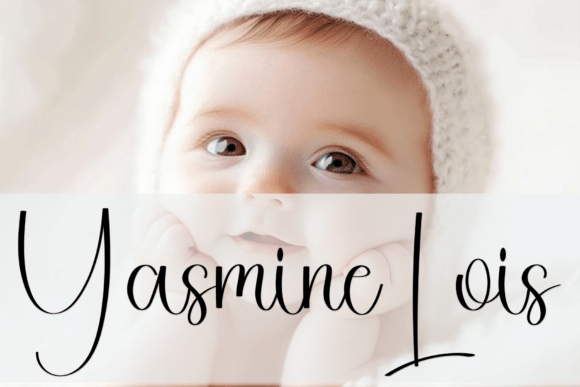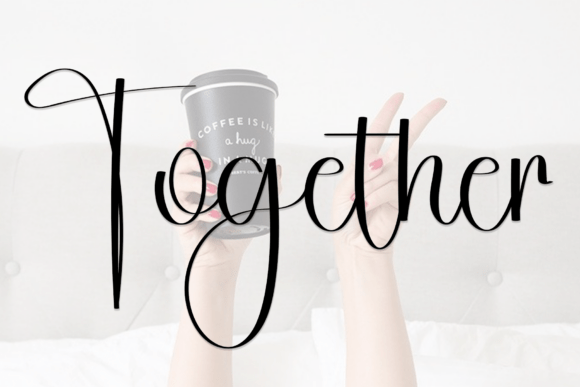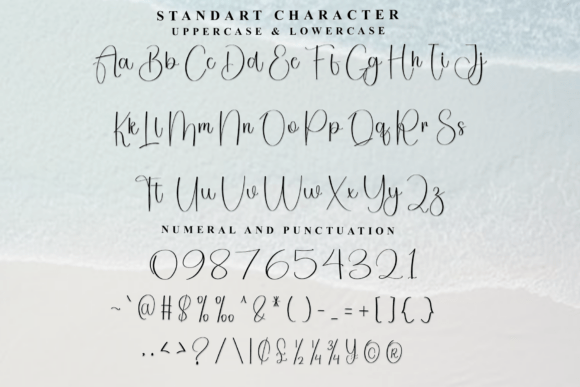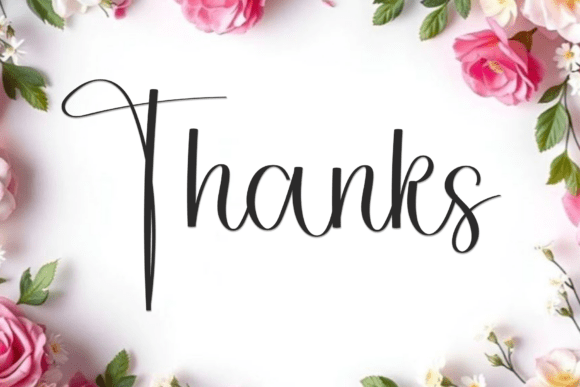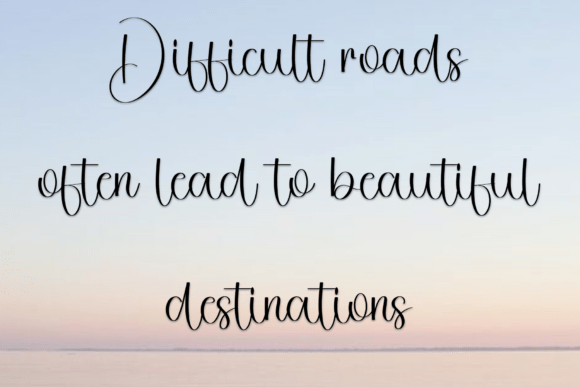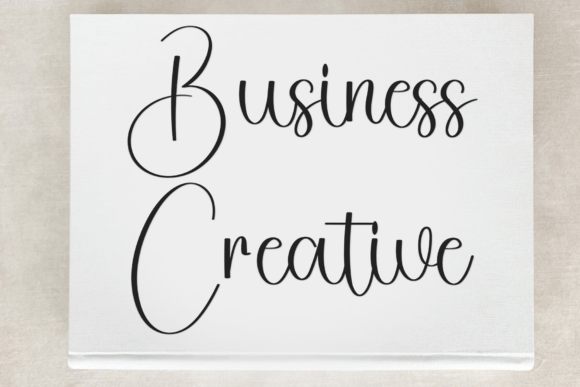
Introducing Balance Birthday Font: The Perfect Holiday Typeface
The holiday season is upon us, and what better way to get into the spirit than with a festive and merry typeface? Look no further than Balance Birthday Font, a decorative and whimsical font that’s sure to add a touch of enchantment to your designs. In this article, we’ll dive into the world of Balance Birthday Font, exploring its features, uses, and benefits for designers and crafters alike.
Balance Birthday Font is a carefully crafted typeface that embodies the magic of the holiday season. Its decorative elements and whimsical flair make it the perfect choice for adding a touch of festive fun to your designs. Whether you’re creating greeting cards, gift tags, or holiday-themed projects, this font is sure to bring a cheerful and nostalgic ambiance to your words.
So, what makes Balance Birthday Font so well-suited for holiday projects? For starters, its festive design elements evoke the spirit of the season, making it perfect for Christmas cards, Halloween decorations, or any other holiday-themed project. Additionally, the font’s whimsical flair adds a playful touch that’s sure to delight both kids and adults alike.
Key Features of Balance Birthday Font
- Decorative Elements: Balance Birthday Font features a range of decorative elements, including swashes, flourishes, and other embellishments that add a touch of festive fun to your designs.
- Whimsical Flair: The font’s whimsical design makes it perfect for adding a playful touch to your projects.
- PUA Encoded: Balance Birthday Font is PUA encoded, making it easy to access all of the amazing glyphs and ligatures.
So, what are the benefits of using Balance Birthday Font for designers and crafters? Here are just a few:
- Ease of Use: With its PUA encoding, Balance Birthday Font is easy to use, even for those with limited design experience.
- Customization: The font’s decorative elements and whimsical flair make it easy to customize your designs and add a personal touch.
- Versatility: Balance Birthday Font is perfect for a range of projects, from greeting cards and gift tags to holiday-themed decorations and more.
Tips for Using Balance Birthday Font
Here are a few tips for getting the most out of Balance Birthday Font:
- Experiment with Different Sizes: Balance Birthday Font looks great in a range of sizes, from small and delicate to large and bold.
- Combine with Other Fonts: Try pairing Balance Birthday Font with other fonts for a unique and eye-catching look.
- Use with Holiday-themed Elements: Balance Birthday Font is perfect for use with holiday-themed elements, such as snowflakes, holly, and more.
In conclusion, Balance Birthday Font is a festive and merry typeface that’s perfect for adding a touch of enchantment to your holiday designs. With its decorative elements, whimsical flair, and PUA encoding, this font is sure to bring a cheerful and nostalgic ambiance to your words. Whether you’re a designer or crafter, Balance Birthday Font is a must-have for any holiday project.